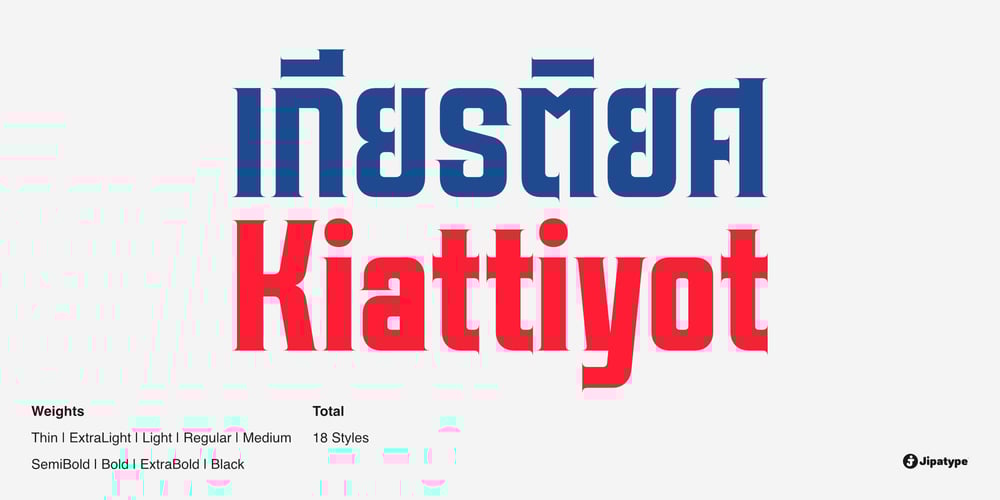
Kiattiyot Font Family was designed by Anupap Jaichumnan and published by Jipatype. Kiattiyot contains 18 styles and family package options. Kiattiyot is a serif font with exceptionally sharp and delicate serifs, featuring crisp lines and a robust structure. It is ideal for projects requiring modernity and distinctiveness, whether for designing logos for sports brands or posters for events. This font family includes 18 styles, covering a wide range of weights from thin to black, and supports both Latin-1 and Thai scripts.